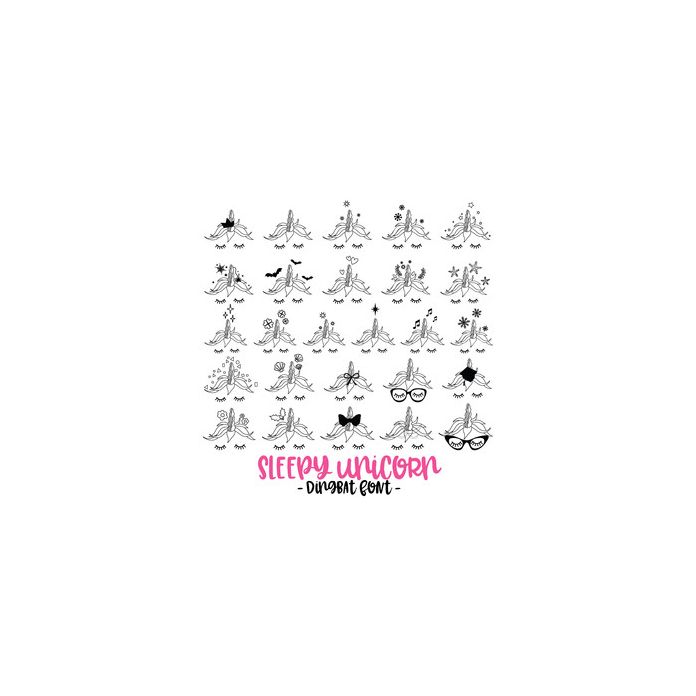
Sleepy Unicorn Dingbat Font. Includes 26 beautiful themed unicorn faces, perfect for coloring, planners, scrapbooking, card making, wall art, home decor, gifts, party decor and lots of other craft projects!. All are assigned to an upper case letter starting with 'A' or can be accessed via glyphs. For more design ideas, coordinating designs & products and inspiration, please visit my blog http://www.sarahhurleyblog.com